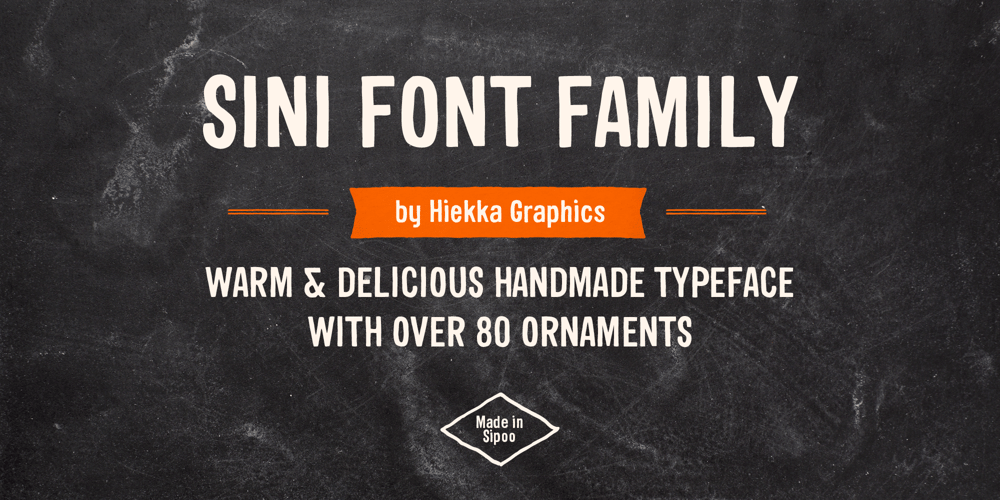
Sini Font Family was designed by Ossi Gustafsson and published by Hiekka Graphics. Sini contains 3 styles and family package options. Sini is a warm and delicious hand-lettered fontface in two styles: bold and ornaments. Sini is recommended for use as a display typeface.